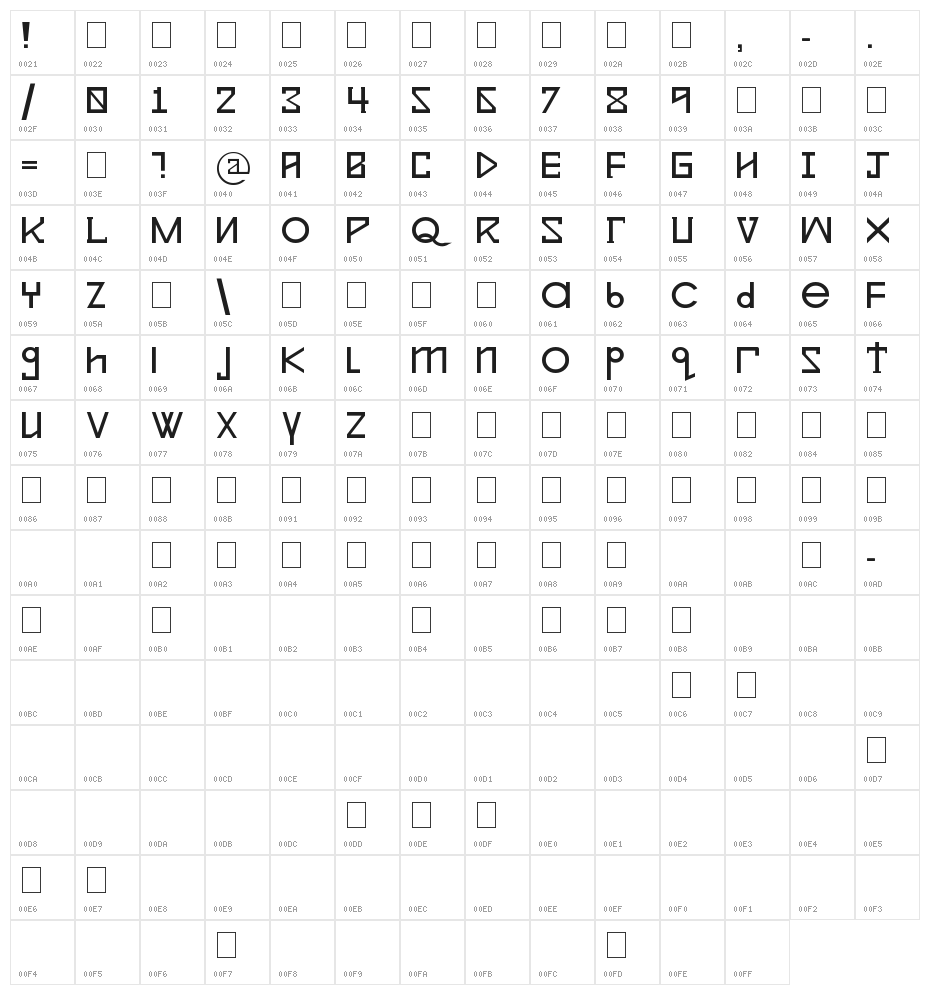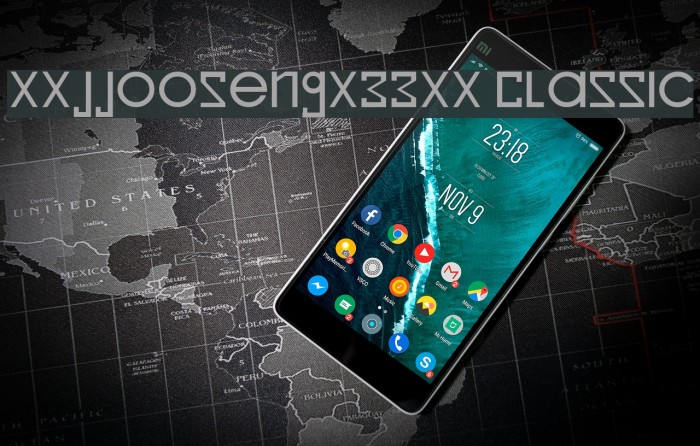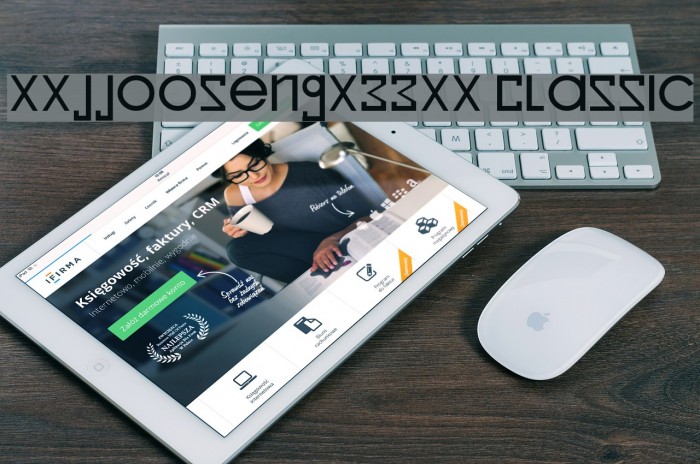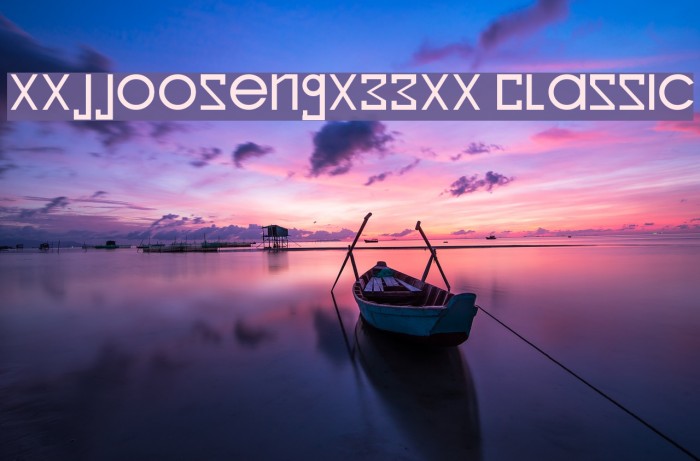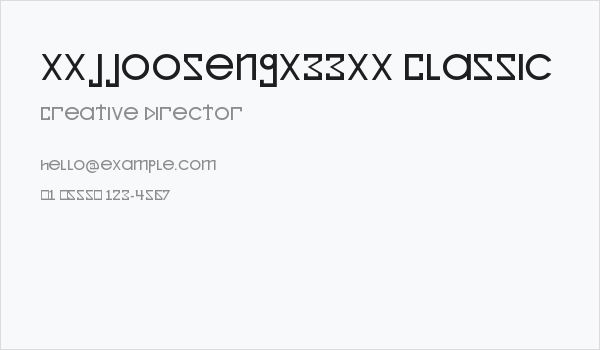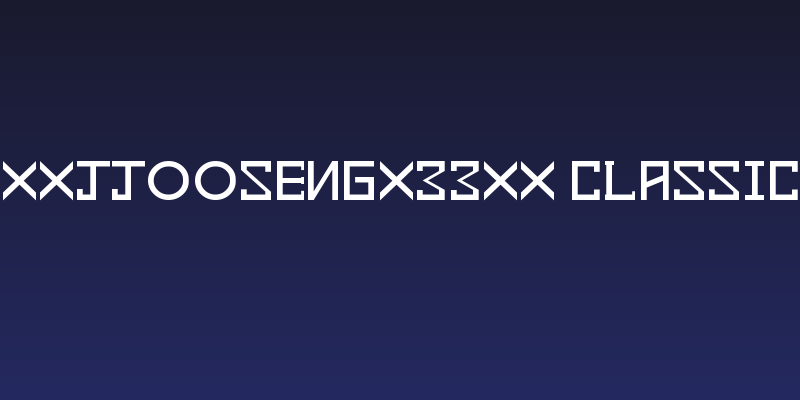
xxjjoosengx33xx Classic Font
xxjjoosengx33xx Classic Description
This font features a bold and geometric design with a modern twist. The uppercase letters are characterized by sharp angles and straight lines, creating a futuristic and edgy appearance. The lowercase letters maintain the geometric style but with slightly softer curves, providing a balanced contrast. The numerals are consistent with the overall design, featuring angular shapes that align with the font's modern aesthetic. Special characters are designed to complement the letterforms, maintaining the same bold and structured look. The font's unique style makes it stand out, suitable for projects that require a contemporary and distinctive typeface.
| Proposed Projects | Ideal for branding, posters, headlines, and any project requiring a modern, standout typeface. |